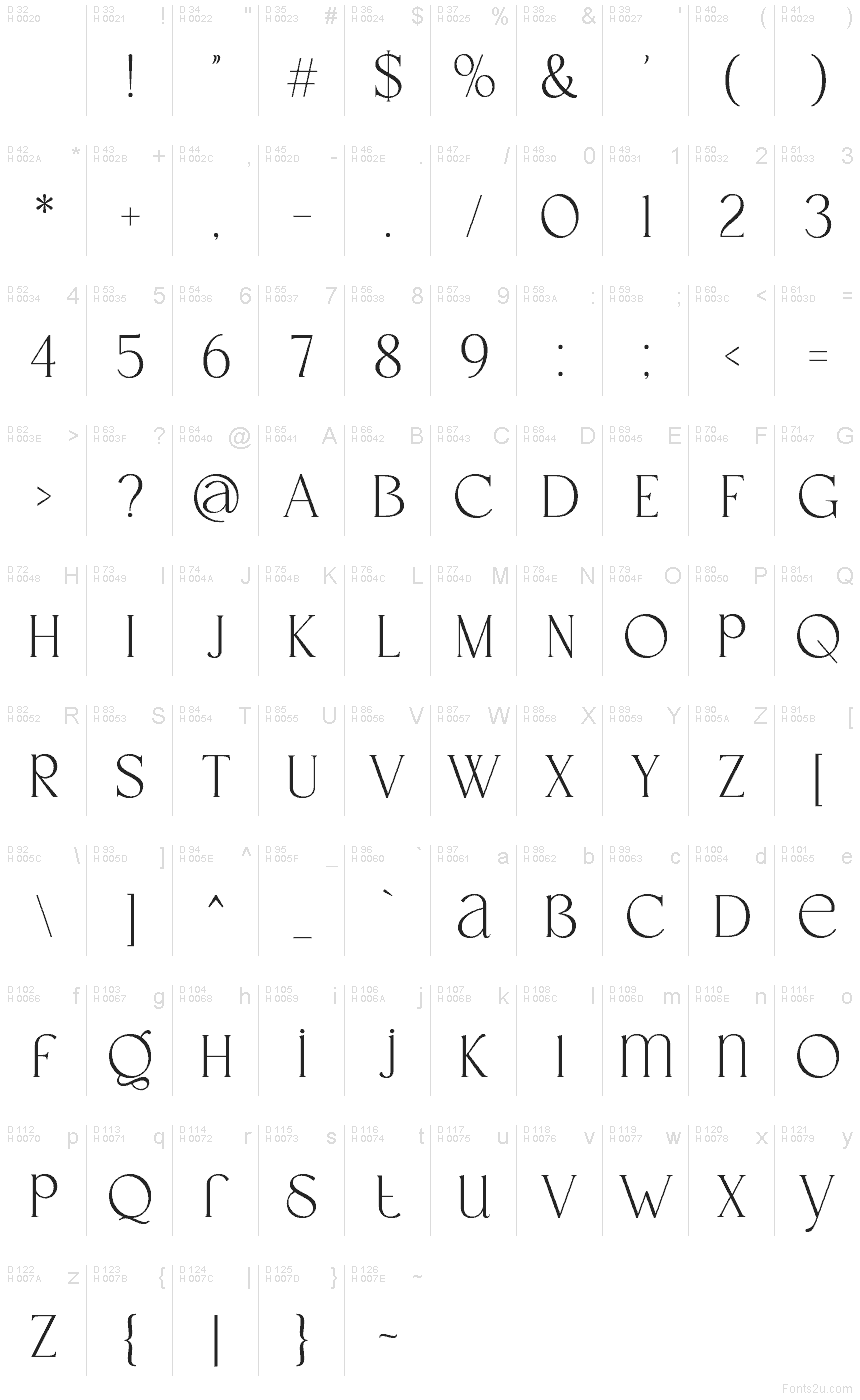
premint-Regular
Premint font by VampStudio is a free thin serif display font. It stands out with whisper-thin hairlines, sculpted verticals, and subtly rounded terminals that feel polished rather than fussy. The letters breathe with generous counters and clean joins, creating a poised, modern elegance—like an Art Deco echo refined for today. Set big and it looks razor-crisp; tracked slightly, it turns airy and luxurious.
Using Premint, headlines snap into focus and brand marks feel instantly curated. This free font shines on beauty branding, boutique logos, editorial mastheads, perfume packaging, upscale menus, and fashion posters. Its measured contrast adds drama without clutter, giving layouts a confident rhythm. Pair with a neutral grotesk for copy to balance the delicate strokes, or add a touch of letterspacing for extra poise.